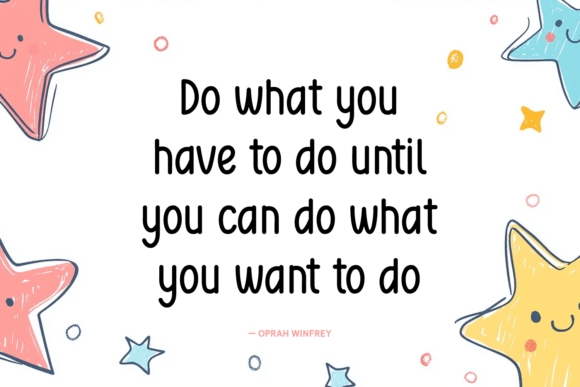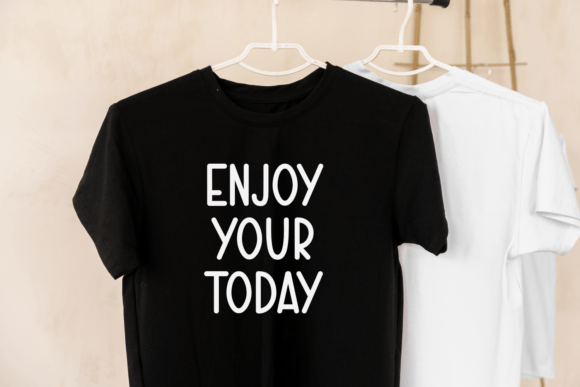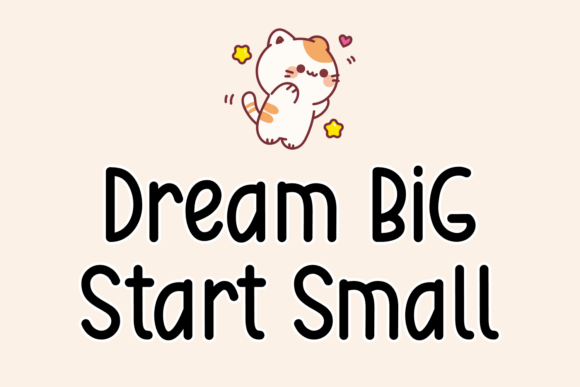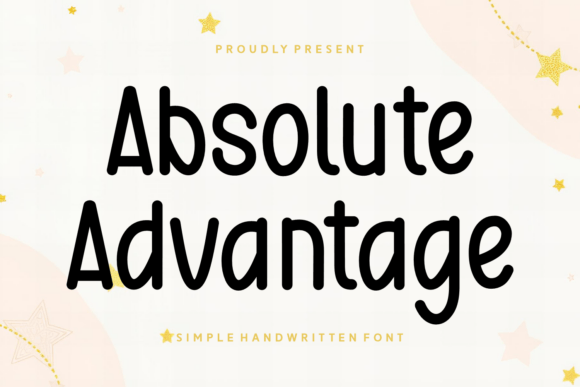
Discover the Power of Personality in Typography
Have you ever been working on a design project, and you just can’t seem to find the right font to capture the essence of your brand? You scroll through page after page of generic sans-serifs, but nothing seems to convey the warmth and personality you’re looking for. That’s where the Absolute Advantage Font comes in – a friendly handwritten font that exudes a casual, relaxed vibe, making it perfect for personal notes, logos, social media, and branding.
As a designer, you know that the right font can make all the difference in communicating your message and connecting with your audience. That’s why the Absolute Advantage Font is a valuable addition to any designer’s toolkit. Its smooth, flowing letters are not only visually appealing, but also convey a sense of approachability and warmth that’s hard to find in more formal fonts.
Key Features of Absolute Advantage Font
- Unique Characteristics: Absolute Advantage Font features a unique blend of modern and classic elements, with a distinctive x-height and refined letterforms that make it highly legible.
- Language Support: The font supports a wide range of languages, including Latin, Cyrillic, and Greek, making it suitable for global design applications.
- Font Style: Absolute Advantage Font is available in regular and italic styles, providing options for designers to create a range of visual effects.
Designer Review: Absolute Advantage Font
Overall, I’d say the Absolute Advantage Font has some great qualities, but also some areas for improvement. Let’s dive in!
- Unique design: The font has a distinctive, modern look that’s sure to grab attention.
- Clear typography: The letters are well-spaced and easy to read, making it perfect for body text.
- Professional feel: The font exudes a sense of sophistication and elegance, great for corporate or high-end branding.
- Limited expressiveness: The font is a bit too uniform and lacks personality, which might make it less engaging for certain types of content.
- Not ideal for small text: The font can be a bit too big and chunky for small text, making it difficult to read in certain contexts.
- No bold or italic variations: The font is only available in regular weight, which limits its versatility.
Overall, the Absolute Advantage Font is a solid choice for projects where you want a clean, modern look. However, it may not be the best fit for every situation, and it could benefit from some additional expressiveness and flexibility. Still, it’s a great option to have in your toolkit.
For a professional look, pair Absolute Advantage Font with a clean and minimalistic design.
For a creative look, experiment with bold font sizes and vibrant colors to make a statement.
For a professional look, use Absolute Advantage Font for headings and subheadings to create visual hierarchy.
Absolute Advantage Font is ideal for:
- Business presentations and reports.
- Marketing materials and advertisements.
- Editorials and opinion pieces.
Remember to pair Absolute Advantage Font with a clear and concise message to make a lasting impression.
Alternatives to Absolute Advantage Font
Montserrat is a modern sans-serif font designed by Julieta Ulanovsky. It’s a great alternative to Absolute Advantage Font for projects that require a clean and minimalist aesthetic. Montserrat is ideal for digital products, mobile apps, and websites.
Comparison: Montserrat has a more geometric and technical feel compared to Absolute Advantage Font, which has a more rounded and friendly appearance. While both fonts are suitable for digital products, Montserrat is a better choice for projects that require a more modern and sleek look.